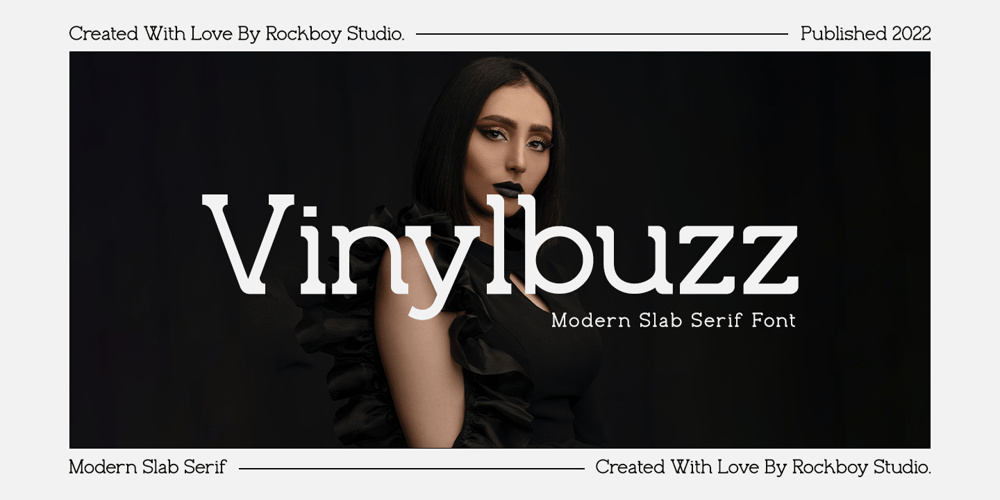
Vinylbuzz
Vinylbuzz font
Vinylbuzz Font Family was designed by Hayinah and published by Rockboys Studio. Vinylbuzz contains 1 styles and family package options. Vinylbuzz is fresh slab serif font. It can easily be matched to an incredibly large set of projects. Add it to your creative ideas, and notice how it makes them stand out!